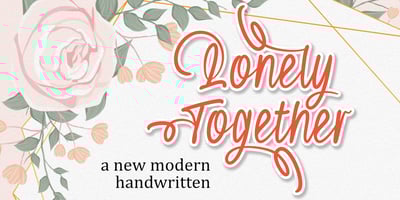
Lonely Together Font Family was designed by Toni Dzulham and published by Dumadi. Lonely Together contains 1 styles and family package options. Lonely Together is a unique handwritten-style font created with brush tools. if you have a project in the form of romantic nuances, invitation cards, social media designs, branding, valentine events, crafting designs, and more.